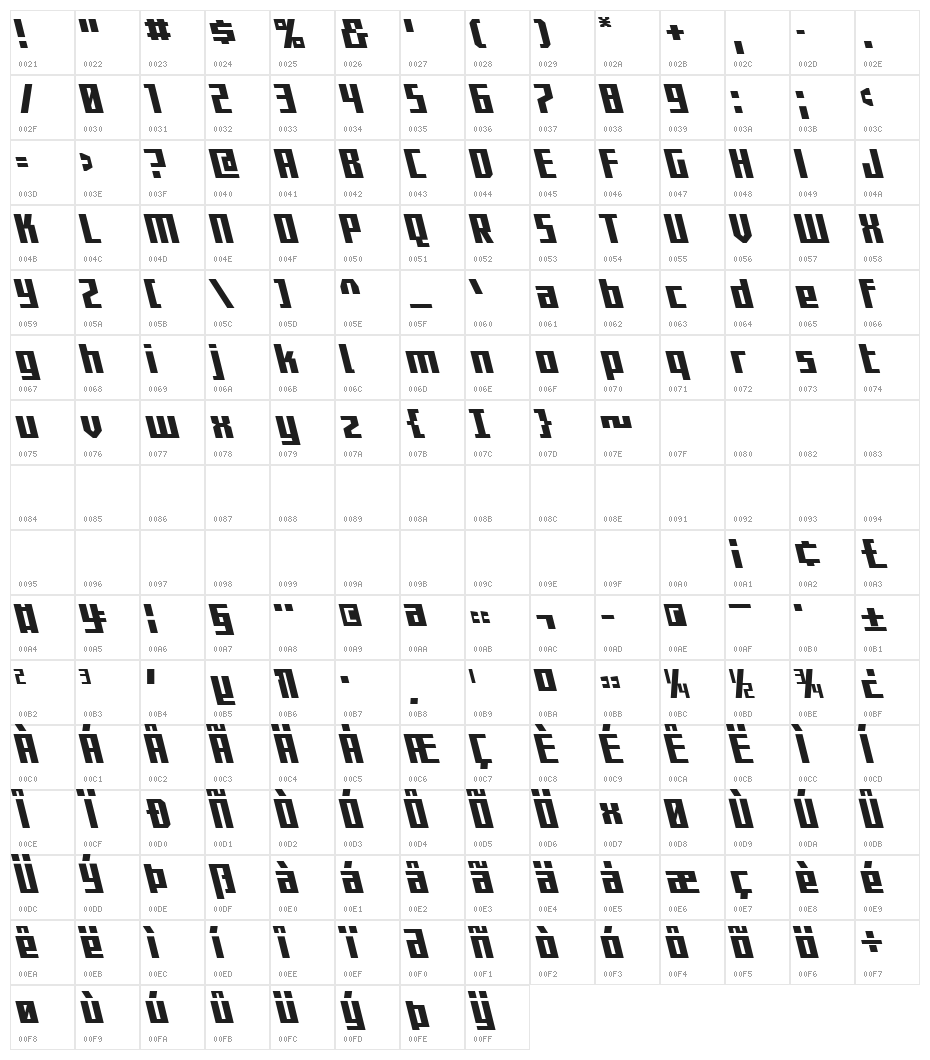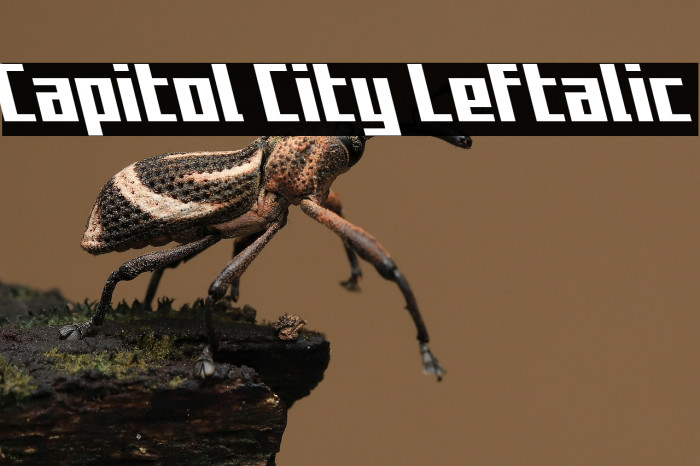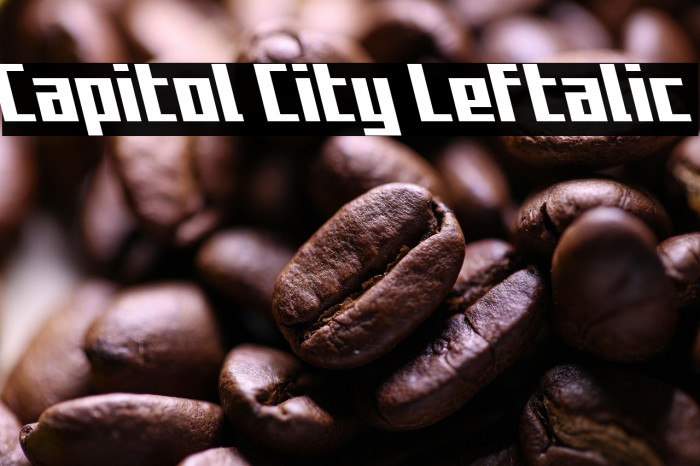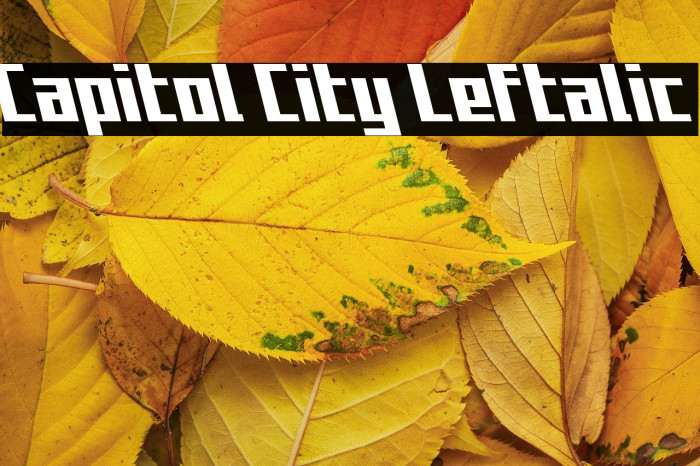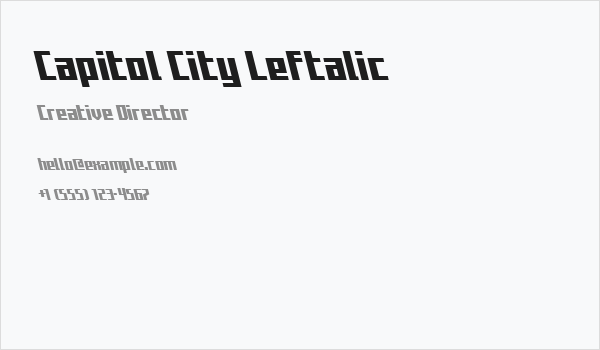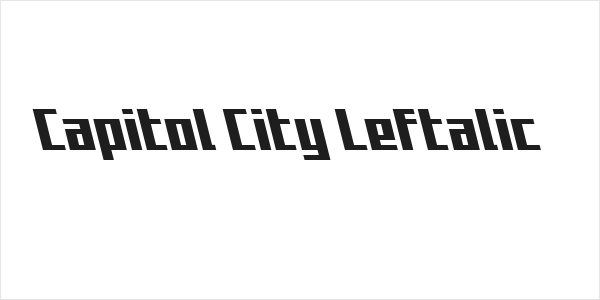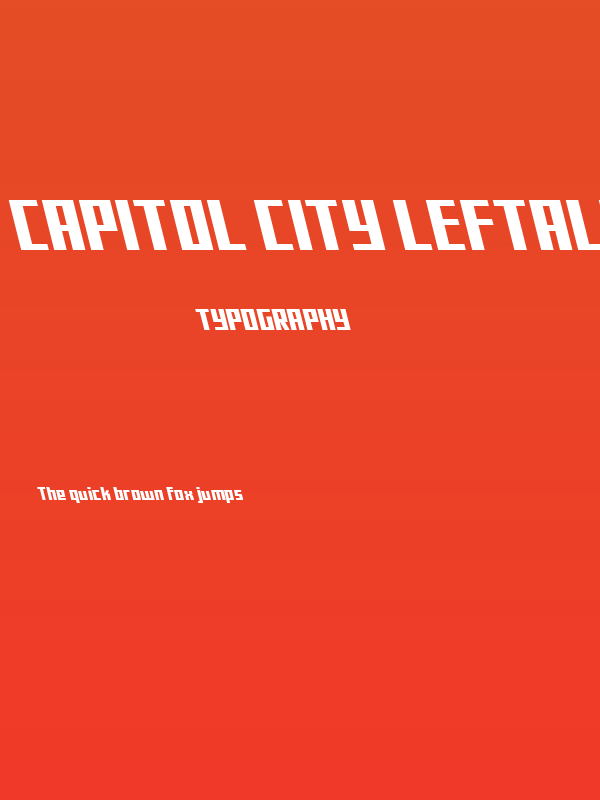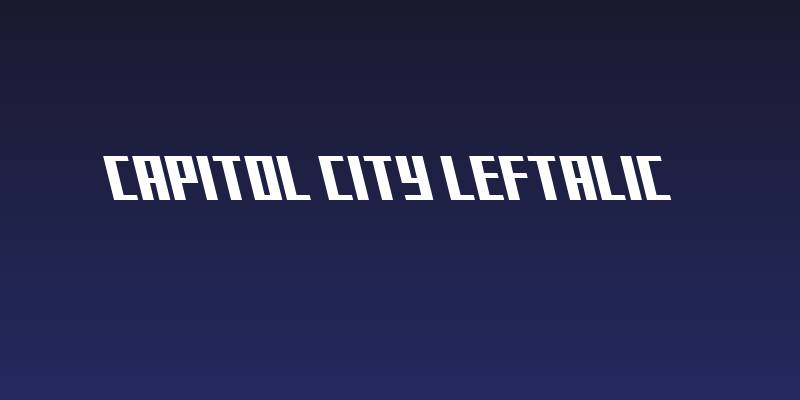
Capitol City Leftalic Font
Capitol City Leftalic Description
This font features a bold and angular design with a distinct leftward slant, giving it a dynamic and energetic appearance. The characters are constructed with thick, straight lines and sharp angles, creating a sense of movement and urgency. The uppercase and lowercase letters maintain a consistent style, with the lowercase being slightly more compact. The numerals and special characters follow the same bold and angular aesthetic, ensuring uniformity across all glyphs. The overall look is modern and assertive, making it suitable for attention-grabbing designs.